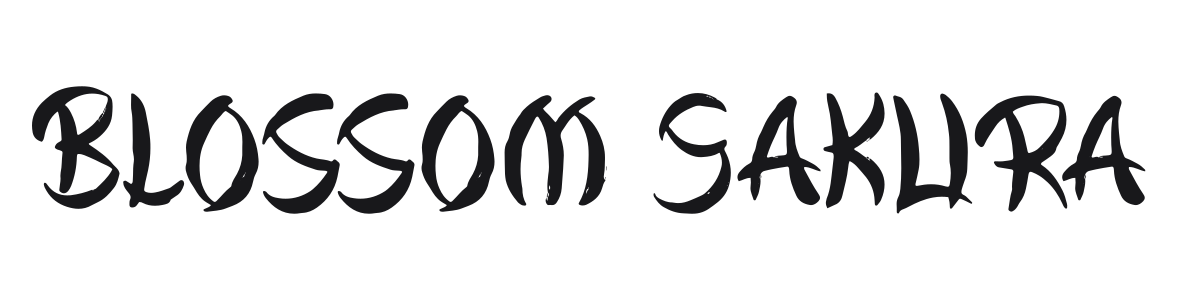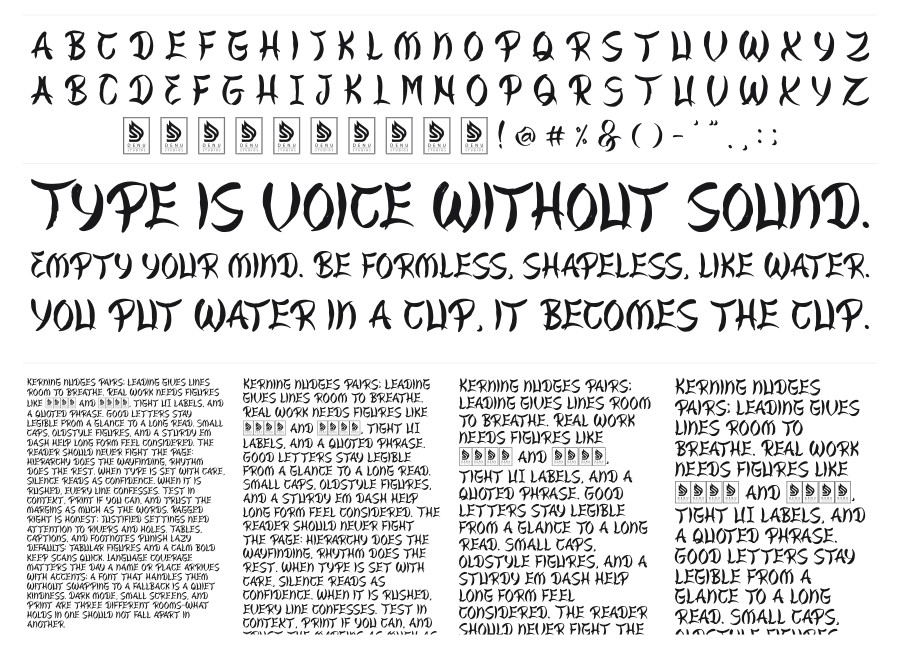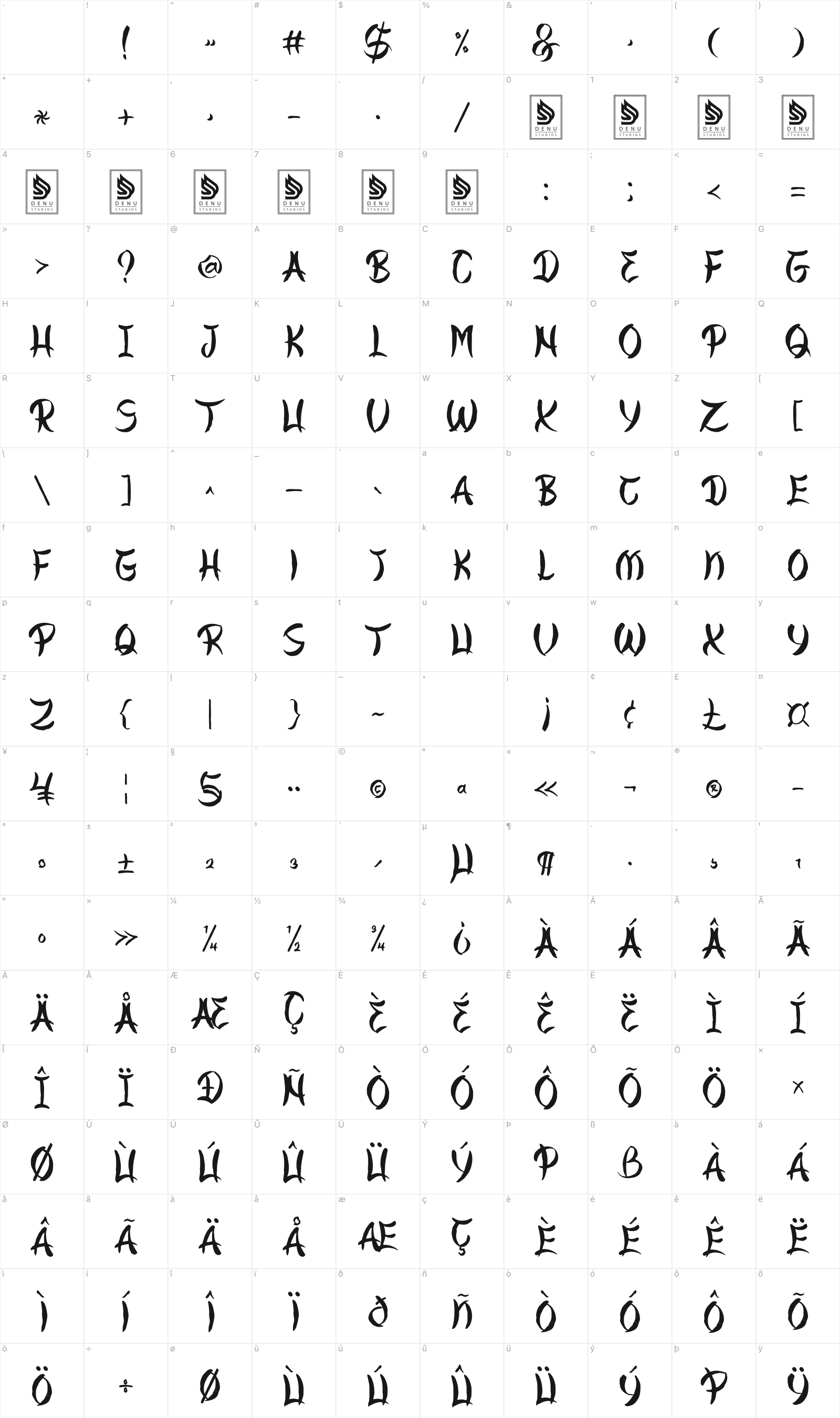
Blossom Sakura
Blossom Sakura is a bold Japanese brush font with the spontaneous energy of sumi-e ink work. Thick sweeping strokes meet razor-thin hairlines in a way that captures the gestural quality of traditional East Asian calligraphy. It reads with immediate cultural presence, making it a strong choice for branding, packaging, or any project that needs authentic brushwork character.